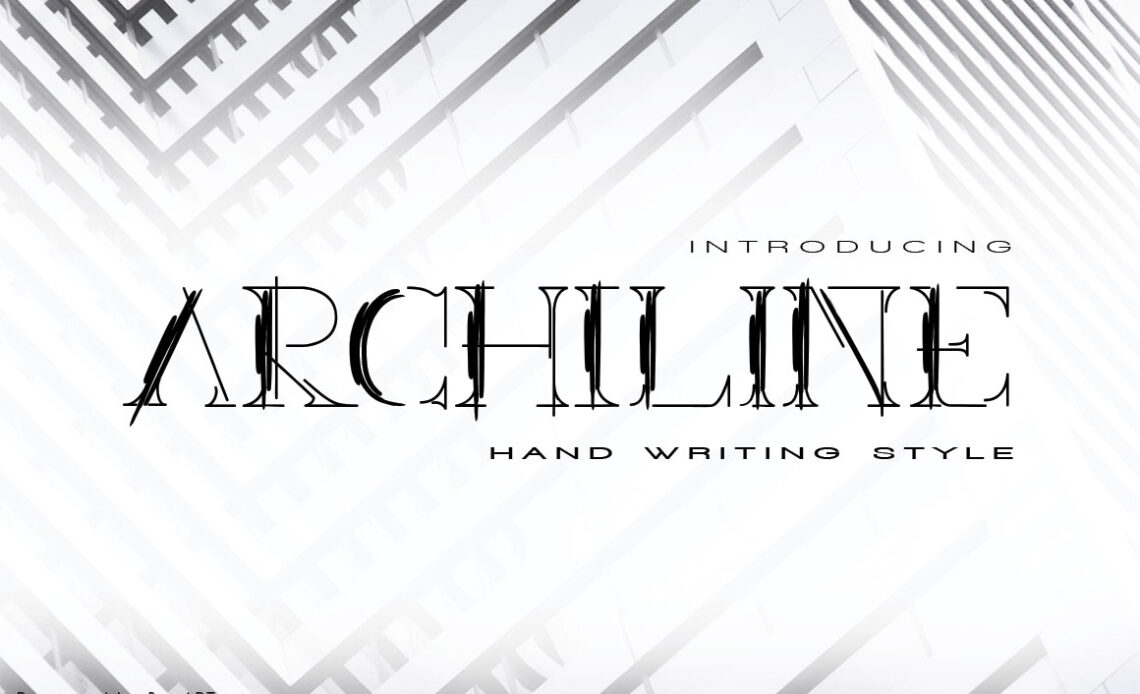
Archiline Font
Introducing Archiline Font, a display font that dances off the page with its mesmerizing hand-scratched charm. Ignite your creativity and add a touch of playful elegance to your designs. Whether you're crafting captivating headlines, enchanting invitations, or quirky logos, Archiline Font is your muse.
Express your uniqueness with Archiline's dynamic duo – regular and italic styles – that seamlessly adapt to your creative vision. Experiment with endless possibilities, effortlessly flowing from classic sophistication to whimsical delight.
Unleash your imagination and let Archiline Font weave its magic. Picture the allure of vintage posters, the warmth of handwritten letters, and the captivating energy of street art – all harmoniously blended into a single font. Its imperfections are its beauty, adding a touch of authenticity and charm to your designs.
With Archiline Font, you're not just downloading a font; you're embarking on a creative odyssey. Transform your words into works of art, captivating your audience with every stroke. Embrace the boundless potential of Archiline Font and let your creativity soar.